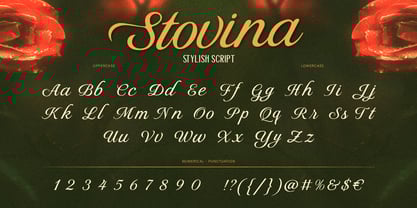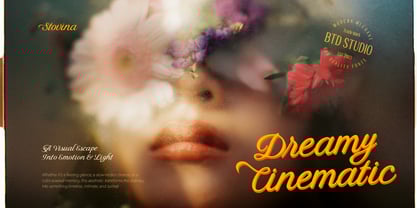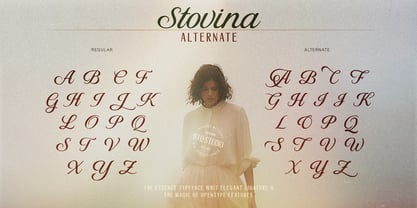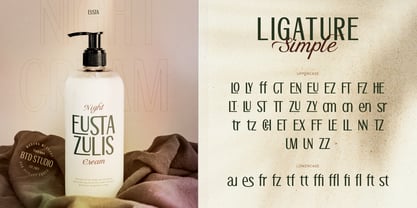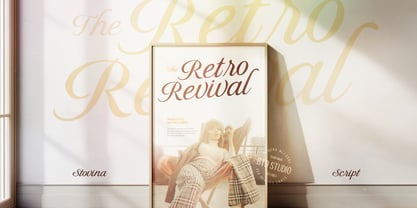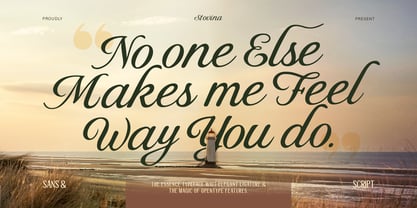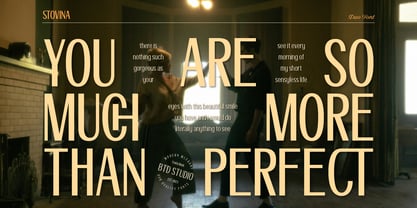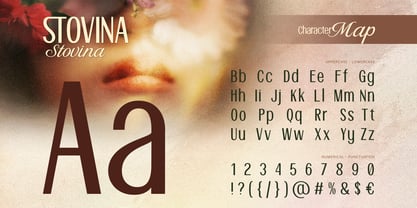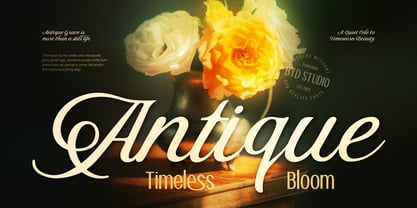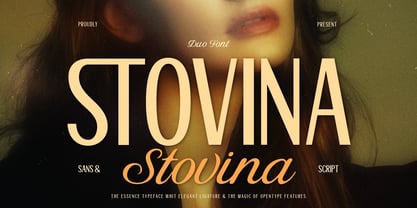
Stovina
Meet Stovina—a stylish duo font that combines clean Sans Serif with a flowing Script, creating the perfect balance of professionalism and charm. Designed with elegant ligatures and OpenType features, this font duo adds a touch of sophistication to any project.
Why Designers Love Stovina:
• Use the Sans for crisp headlines, and the Script for romantic accents.
• Ideal for luxury branding, weddings, and editorial designs.
• Includes multilingual support, numerals, and punctuation.
Perfect For:
• Logos & branding (beauty, cafes, fashion)
• Wedding invitations & greeting cards
• Packaging & labels (food, cosmetics, gifts)
• Social media quotes & Pinterest graphics
Features:
• A - Z set (Uppercase & Lowercase)
• Number
• Punctuation
• Alternate
• Ligature
• Multilingual